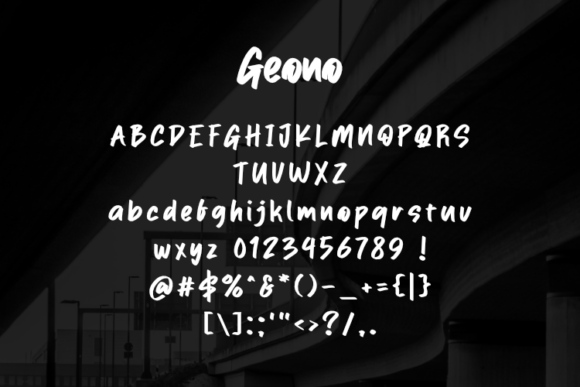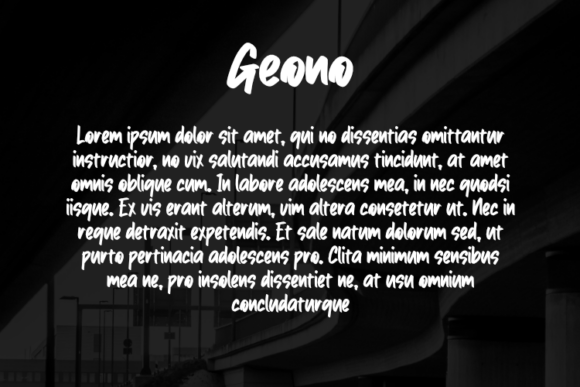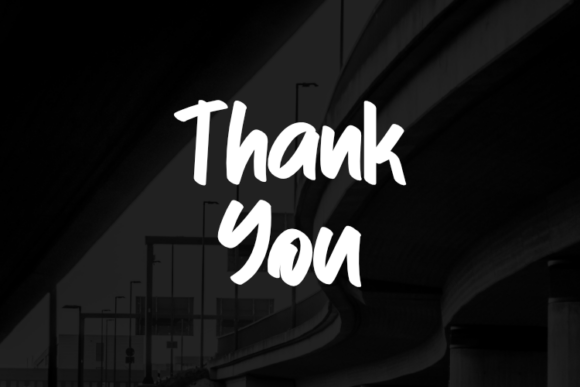
Introducing Geono Font: Elevate Your Designs with Versatility and Style
In the world of design, the right font can make all the difference. It’s not just about conveying a message; it’s about doing so with style, flair, and impact. For designers and crafters looking to elevate their creations, Geono Font is here to revolutionize the way you approach typography. This versatile and dynamic font is designed to seamlessly integrate into your projects, offering a perfect blend of style, function, and flexibility.
The Perfect Fit for Fashion Design
Geono Font is particularly suited for fashion design, making it an ideal choice for high-value clothing lines, unique t-shirt designs, and a wide range of fashion-related projects. Its adaptability ensures that it can be used across various design software and platforms, providing you with the freedom to create without limitations. Whether you’re working on a luxury brand’s typography or a casual, streetwear-inspired collection, Geono Font brings a level of sophistication and elegance that’s hard to match.
Key Features of Geono Font
- Versatility: Geono Font is crafted to be versatile, suitable for a myriad of design projects beyond fashion. Its unique style ensures that your designs stand out, whether you’re working on print materials, digital content, or merchandise.
- Dynamic Style: The font boasts a dynamic style that adds a modern touch to any design. Its characters are carefully designed to convey a sense of movement and energy, perfect for brands and designers looking to make a statement.
- Flexibility: The flexibility of Geono Font is one of its standout features. It can be used for both headline and body text, making it a comprehensive solution for a wide range of design needs.
Empowering Your Designs
Why Choose Geono Font?
Choosing the right font for your project can be overwhelming, given the numerous options available. However, Geono Font stands out for several reasons:
- Unique Style: In a sea of generic fonts, Geono offers a unique style that can help your designs stand out.
- High-Quality: The font is designed with high-quality in mind, ensuring that it looks great in both digital and print formats.
- Support for Creativity: Geono Font supports your creative process by offering a flexible and adaptable solution for your typography needs.
Geono Font is a game-changer for designers and crafters looking to elevate their typography. With its versatile and dynamic style, compatibility with all major design software, and ease of use, it’s an excellent choice for a wide range of projects. Whether you’re working on a high-end fashion brand or a unique t-shirt design, Geono Font offers the perfect blend of style, function, and flexibility. Make your designs stand out with Geono Font – the ultimate tool for bringing your creative visions to life.